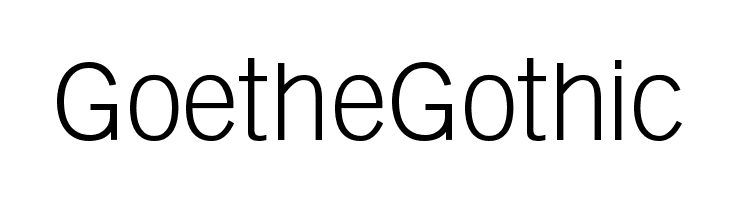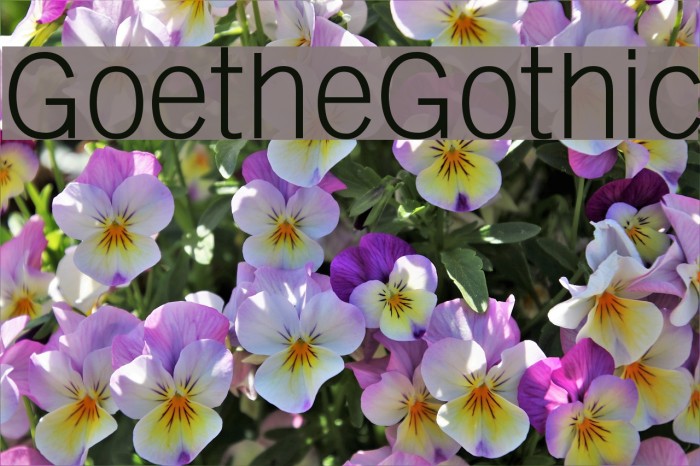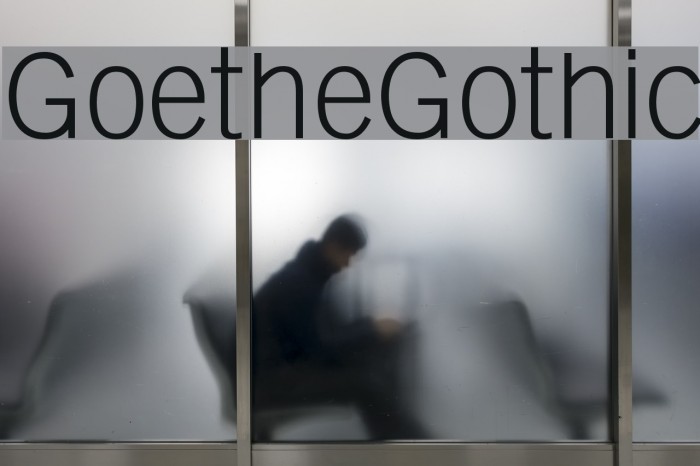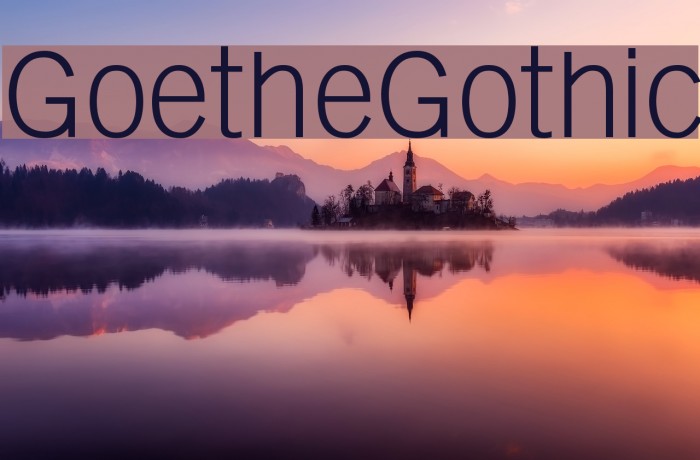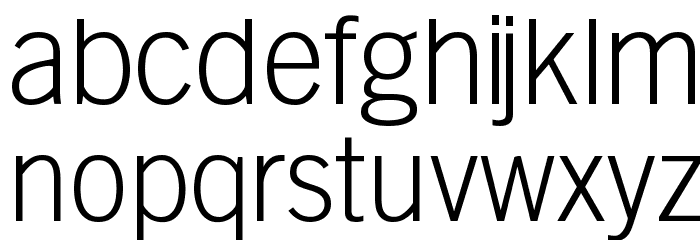
GoetheGothic
This font features a clean and modern sans-serif design, characterized by its uniform stroke width and geometric shapes. The uppercase letters are tall and slightly condensed, providing a sleek and professional appearance. The lowercase letters maintain a consistent height, contributing to the font's readability and balance. The numerals are clear and distinct, matching the overall aesthetic of the alphabet. Special characters are well-integrated, maintaining the font's cohesive look. This typeface is versatile, suitable for both digital and print media, offering a contemporary and minimalist style.
A modern, geometric sans-serif font with uniform strokes and excellent readability.
- Proposed Projects: Ideal for corporate branding, web design, editorial layouts, and minimalist posters.
- Width: Condensed